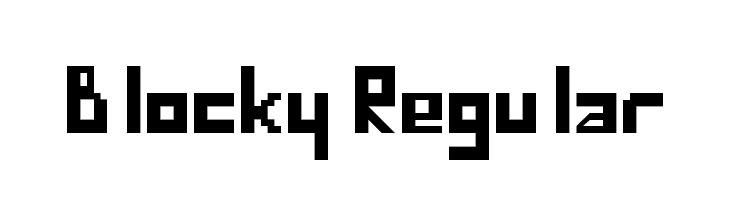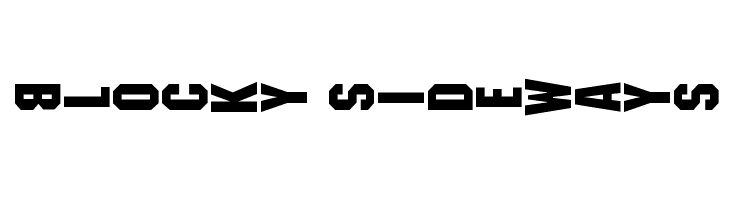
( JJASA - www.jjasa.com )
A bold, angular font with sharp edges and a modern, edgy style.
A bold, dynamic script font with a handwritten, energetic style.
( Fonts by MJType )
A casual, handwritten font with a friendly and approachable style.
( Greg Hatch - hatchtag.ca )
A bold, blocky font with a shadow effect for a 3D look.
( Greg Hatch - hatchtag.ca )
A bold, italicized font with a block shadow effect for a dynamic, 3D look.
( Greg Hatch - hatchtag.ca )
An italic font with a shadow effect, offering a dynamic and modern look.
( Greg Hatch - hatchtag.ca )
A bold, geometric font with a distinct shadow effect for a three-dimensional look.
( Fonts by PutraCetol Studio )
A bold, playful font with a unique blocky design and creative use of negative space.
( Fonts by Masa Aska Sanurumi )
A bold, blocky stencil font with rounded characters and a playful style.